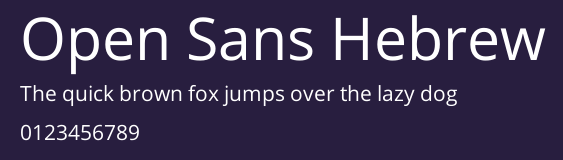
Open Sans Hebrew Preview
• Font Name: Open Sans Hebrew
• Manufacturer: Ascender Corporation, Yanek Iontef
About Open Sans Hebrew.ttf
Open Sans Hebrew.ttf is a modern, elegant sans-serif font designed for ultimate readability and visual harmony. Perfect for branding, headlines, web design, and print materials.